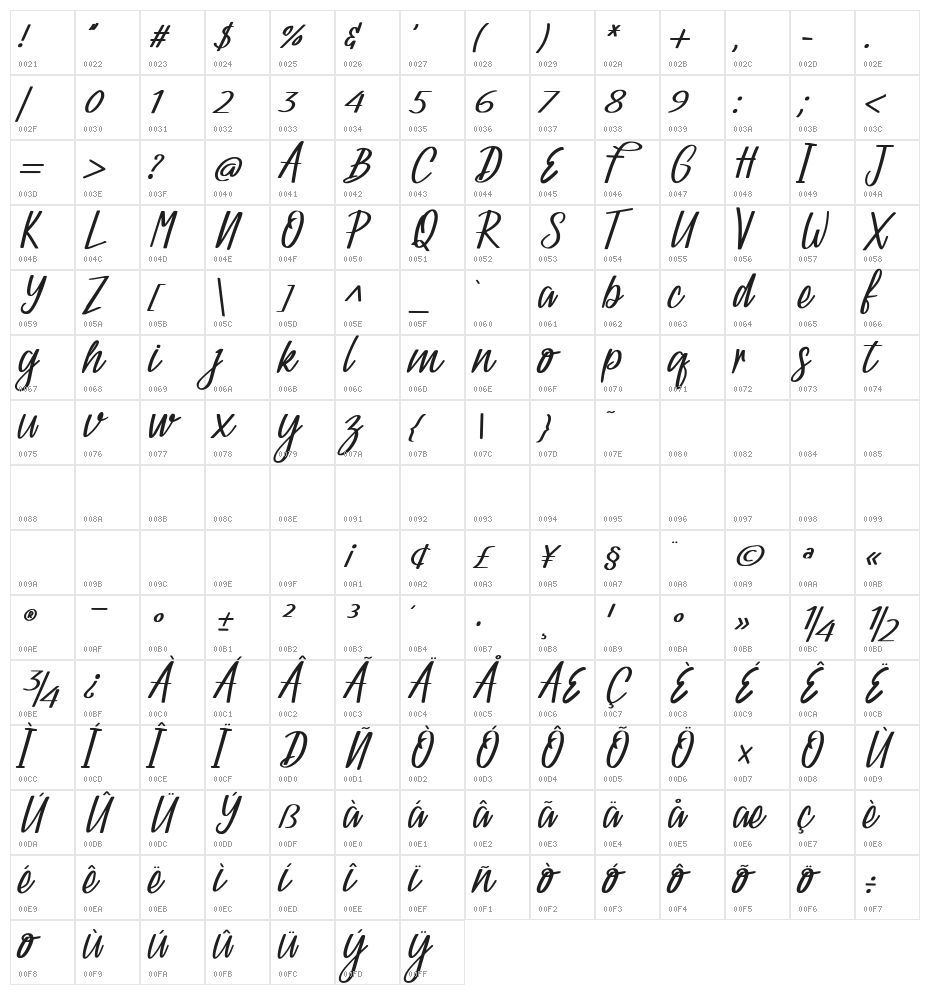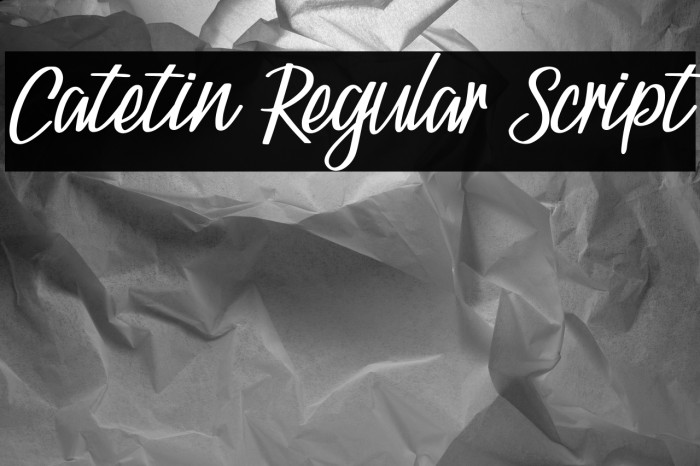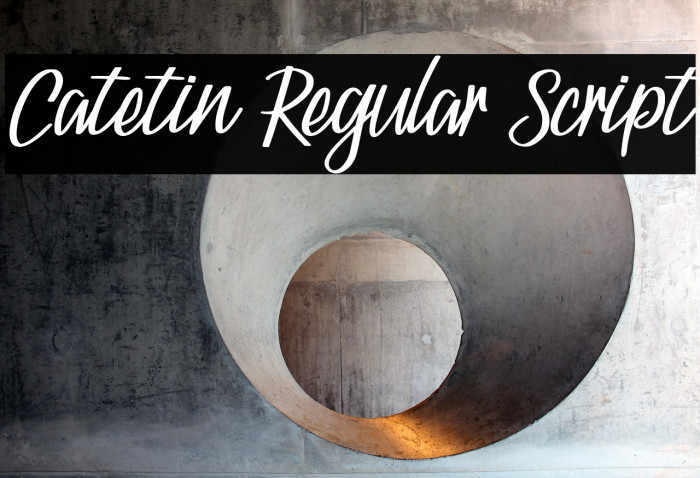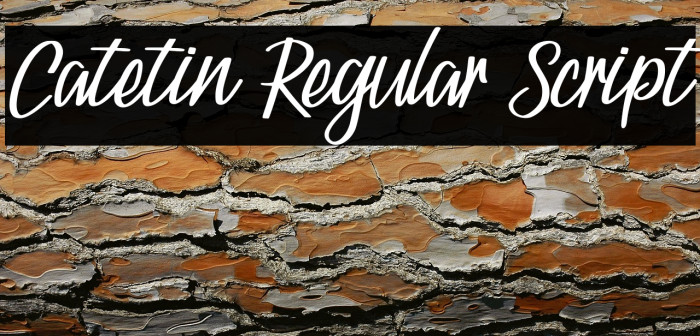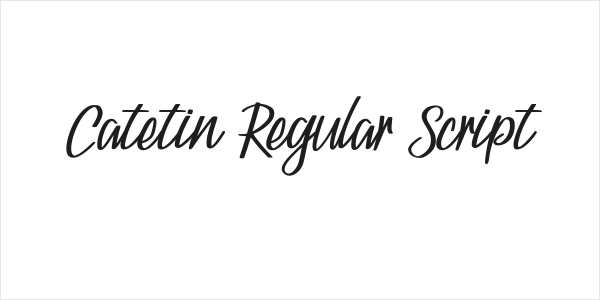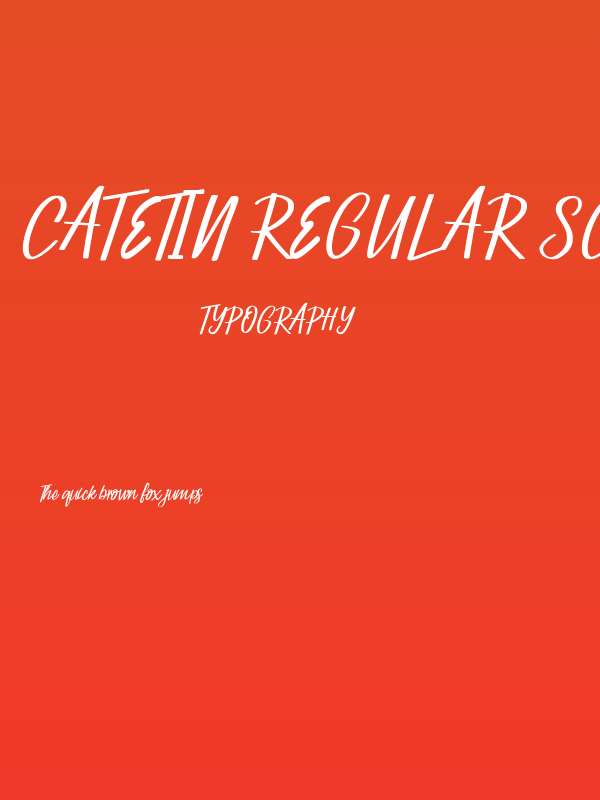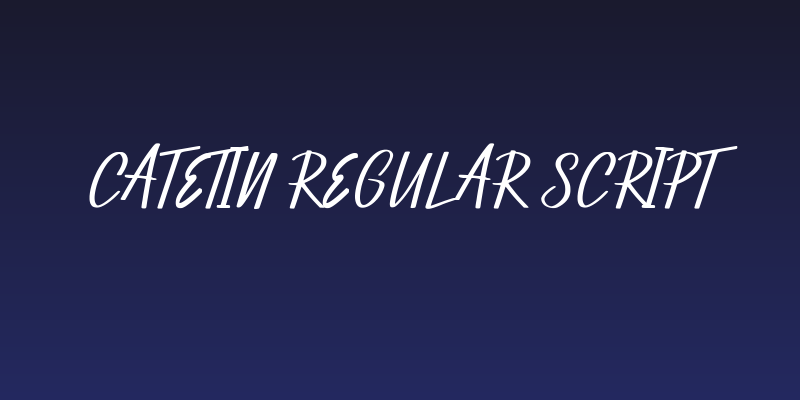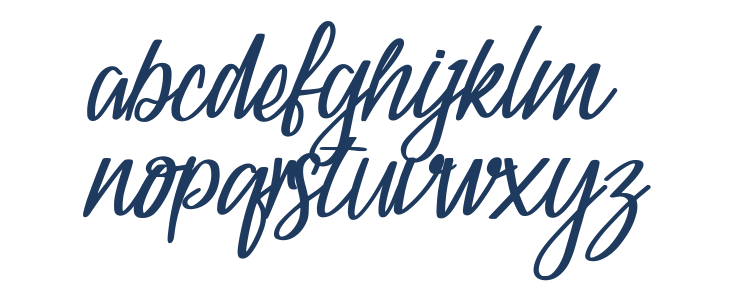
Catetin Regular Script Font
Catetin Regular Script Description
This script font exudes a lively and dynamic character with its fluid, cursive strokes. The letters are interconnected, creating a seamless flow that mimics natural handwriting. The uppercase letters are bold and slightly slanted, adding a touch of elegance and sophistication. The lowercase letters maintain a consistent rhythm, enhancing readability while preserving the font's artistic flair. The numerals and special characters are crafted with the same attention to detail, ensuring uniformity across all glyphs. This font is perfect for projects that require a personal touch, such as invitations, greeting cards, and branding materials.
| Use Case | Logos, Headlines, Decorative text |
| Proposed Projects | Ideal for invitations, greeting cards, branding, and personal projects. |